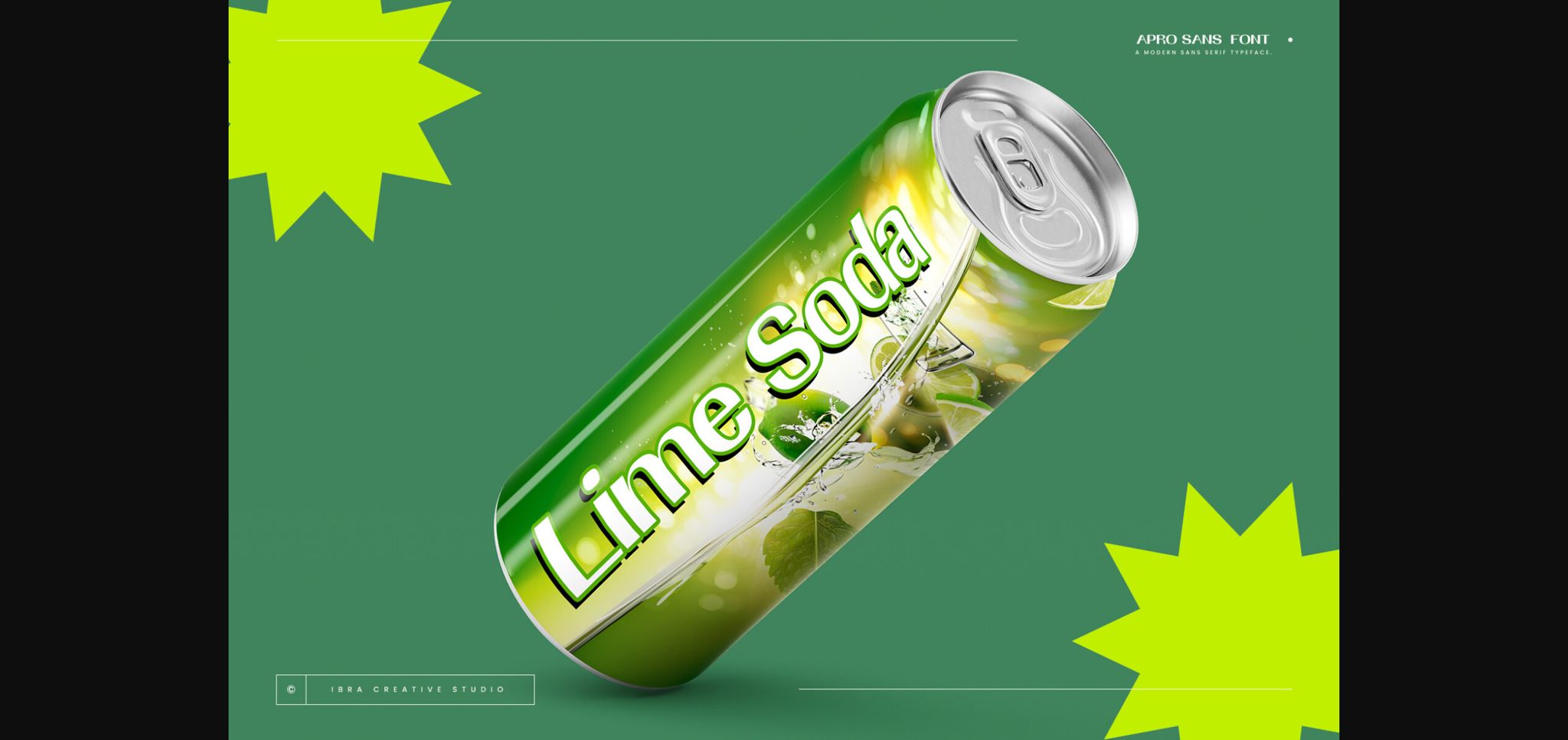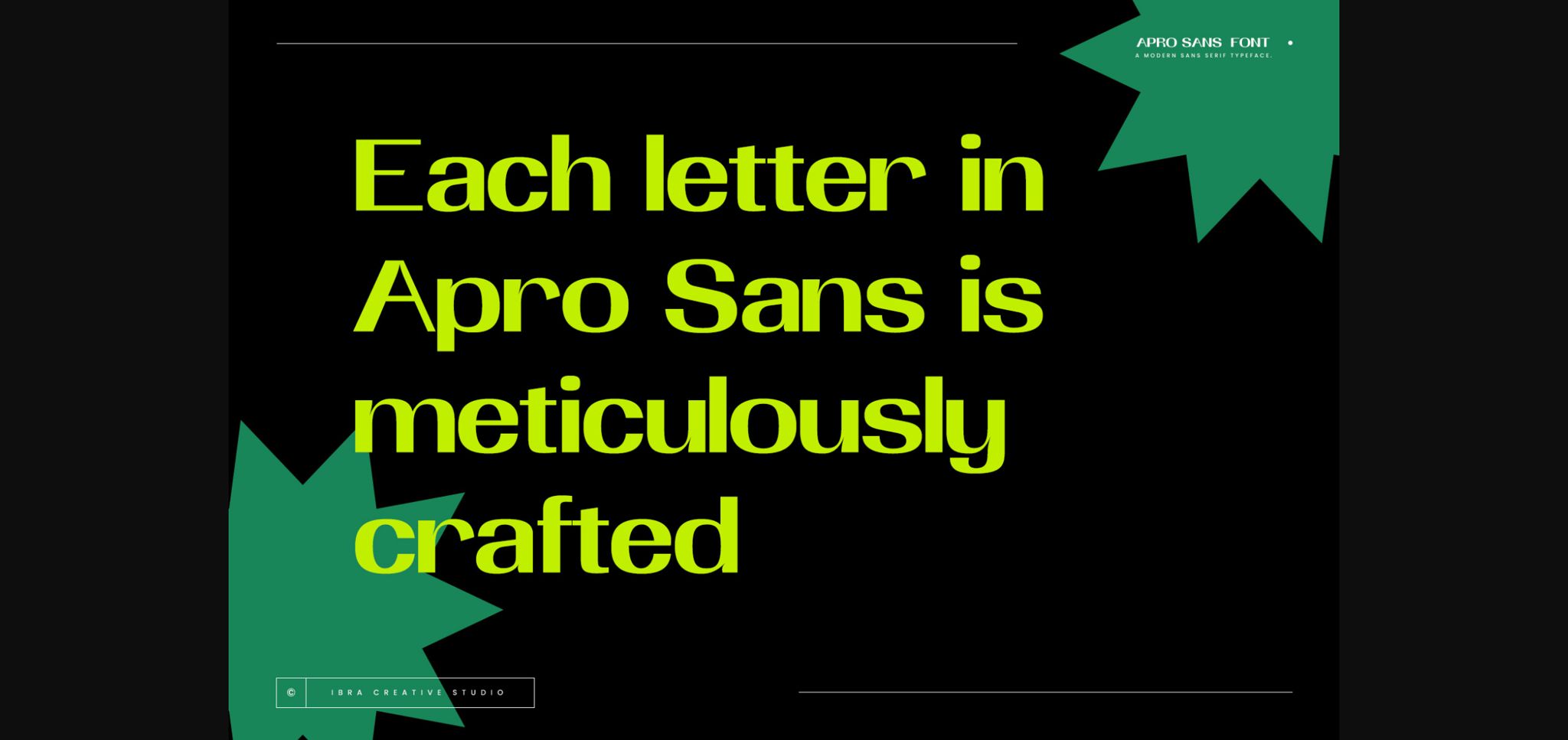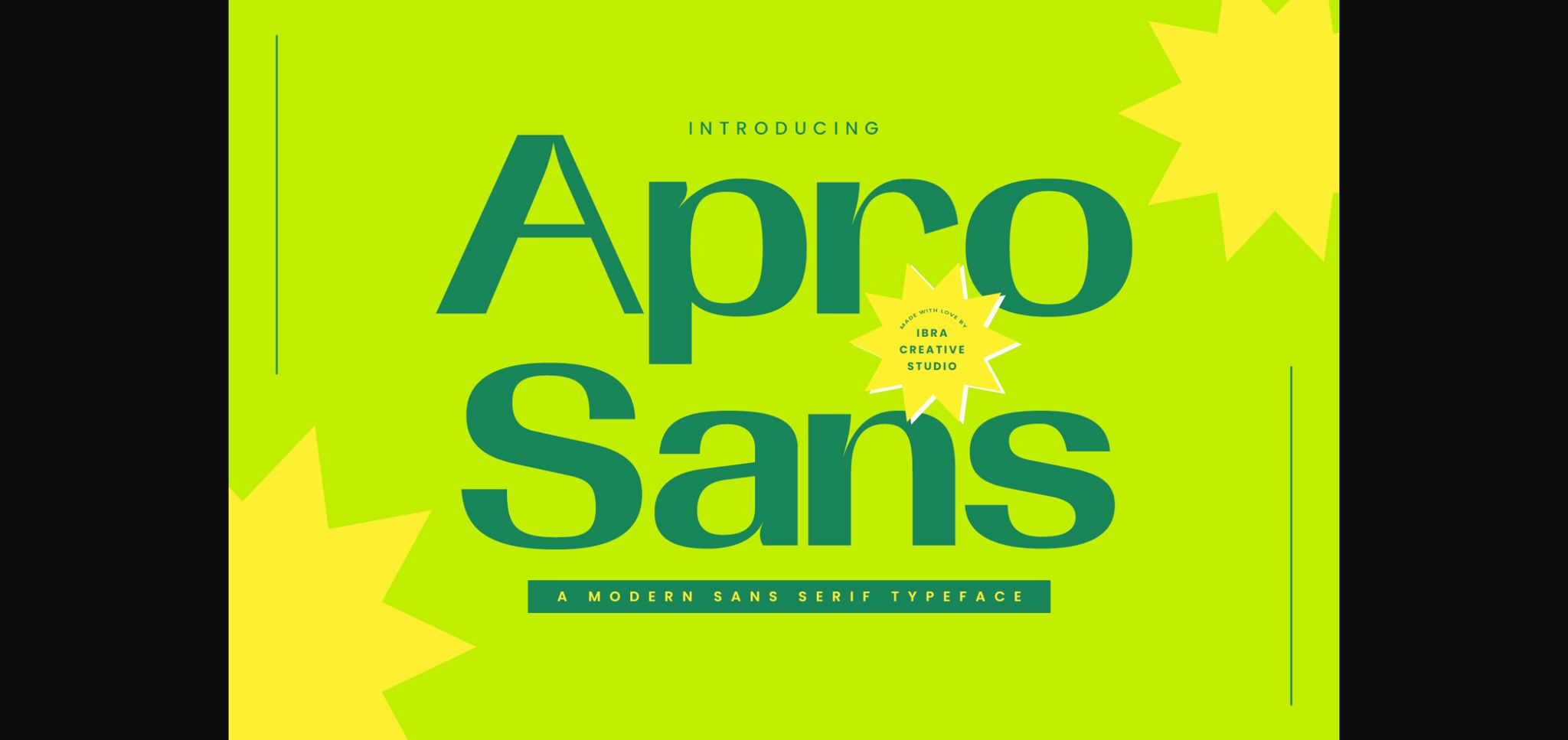
About Apro Sans Font
Apro Sans, a modern sans-serif typeface, embodies the epitome of contemporary design with its sleek and clean aesthetic. Each letter in Apro Sans is meticulously crafted, featuring a perfect balance of simplicity and sophistication. The absence of serifs and the consistent stroke width give it a distinctly modern and versatile appeal, making it an ideal choice for a wide range of design applications.